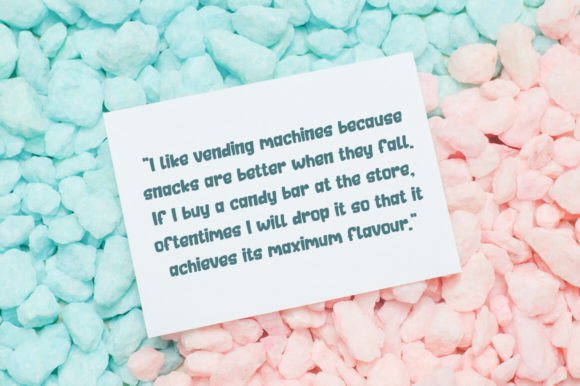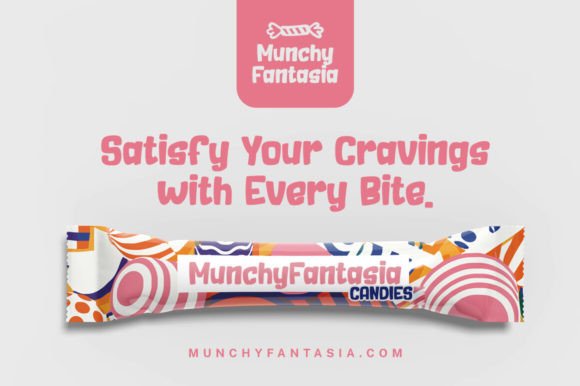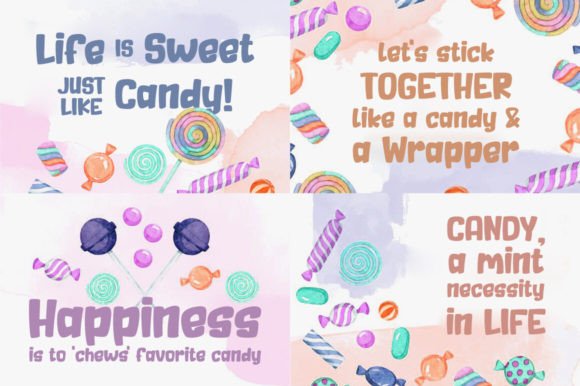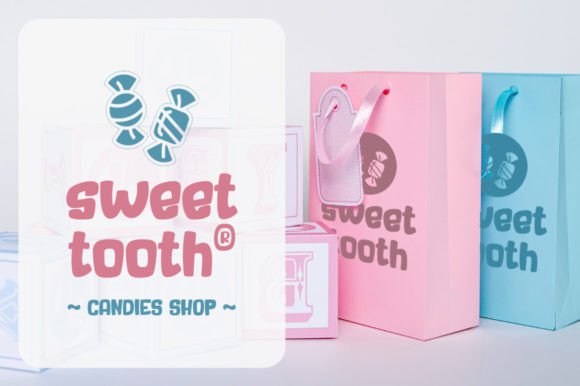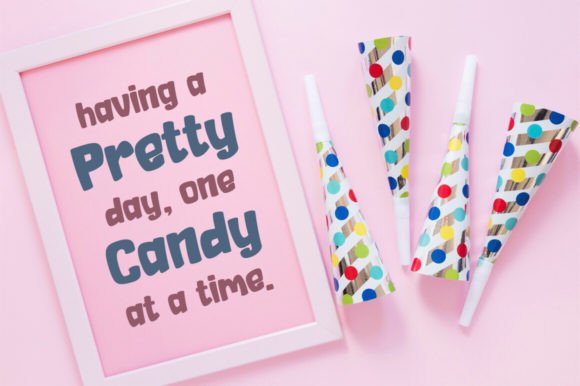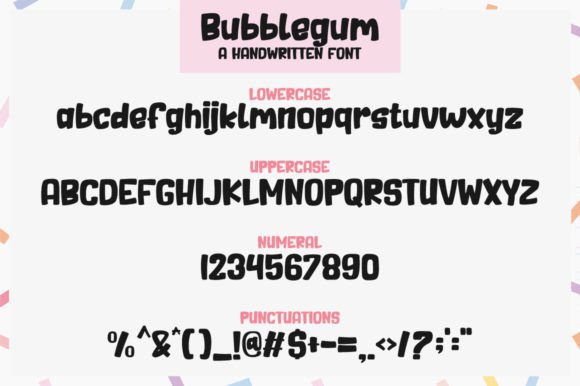
Bubblegum Font: Add a Touch of Whimsy to Your Designs
Are you looking for a font that exudes sweetness and charm? Look no further than the Bubblegum font! This adorable display font is perfect for adding a romantic and personalized touch to your designs. In this article, we’ll dive into the world of Bubblegum font, exploring its features, uses, and benefits for designers and crafters.
What is Bubblegum Font?
Bubblegum is a cute and casual display font that is dainty and joyful. Its playful and whimsical design makes it an ideal choice for creating eye-catching and engaging designs. The font’s sweet and charming appearance is reminiscent of childhood memories, making it perfect for designs that require a touch of nostalgia.
Features of Bubblegum Font
The Bubblegum font boasts several features that make it a standout choice for designers and crafters. Some of its notable features include:
- Cute and Casual Design: The Bubblegum font has a playful and informal design that is perfect for creating designs that require a personal touch.
- Dainty and Joyful: The font’s dainty and joyful appearance makes it ideal for creating designs that are sweet and charming.
- Romantic and Personalized: The Bubblegum font is perfect for creating designs that require a romantic and personalized touch, such as wedding invitations and cards.
Uses of Bubblegum Font
The Bubblegum font is versatile and can be used for a variety of design projects. Some of the most popular uses of this font include:
- Wedding Invitations: The Bubblegum font is perfect for creating beautiful and romantic wedding invitations that set the tone for the big day.
- Cards and Stationery: The font’s playful and whimsical design makes it ideal for creating greeting cards, thank-you cards, and other stationery.
- DIY Crafts: The Bubblegum font is a great choice for DIY crafters who want to add a personal touch to their projects, such as scrapbooking, journaling, and paper crafting.
- Digital Designs: The font can also be used for digital designs, such as social media graphics, blog posts, and website headers.
Benefits of Using Bubblegum Font
The Bubblegum font offers several benefits for designers and crafters. Some of the advantages of using this font include:
- Easy to Read: The Bubblegum font is clear and easy to read, making it perfect for designs that require a high level of legibility.
- Versatile: The font’s versatility makes it suitable for a wide range of design projects, from wedding invitations to digital designs.
- Unique and Creative: The Bubblegum font’s playful and whimsical design makes it a great choice for designers and crafters who want to add a unique and creative touch to their projects.
Tips for Using Bubblegum Font
To get the most out of the Bubblegum font, here are some tips to keep in mind:
- Use it Sparingly: The Bubblegum font is best used sparingly, such as for headings or titles, to create a bold and eye-catching effect.
- Pair it with Other Fonts: The font can be paired with other fonts to create a unique and creative design. Try pairing it with a serif font for a contrasting look.
- Experiment with Colors: The Bubblegum font looks great in a variety of colors, from soft pastels to bold brights. Experiment with different colors to find the perfect look for your design.
The Bubblegum font is a sweet and charming display font that is perfect for adding a romantic and personalized touch to your designs. Its playful and whimsical design makes it ideal for a wide range of design projects, from wedding invitations to digital designs. With its ease of use, versatility, and unique design, the Bubblegum font is a great choice for designers and crafters who want to add a touch of whimsy to their projects.